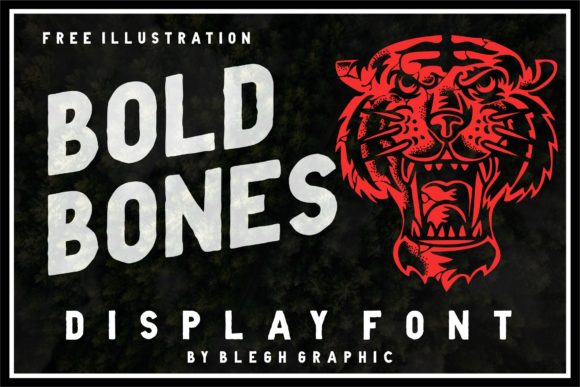
The Bold Statement: Unleashing the Power of Bold Bones Font
I’ll never forget the design project that led me to discover Bold Bones Font. I was working on a vintage-themed poster for a client’s antique shop, and I was struggling to find the perfect font to capture the essence of their brand. That’s when I stumbled upon Bold Bones, and it instantly became the perfect fit. In this article, I’ll share my experience with this amazing font, its features, and how to make the most of it in your designs.
- 💥 **Impactful and attention-grabbing**: Bold Bones is a bold, thick lettered, and vintage-looking display font that’s perfect for making a statement.
- ✅ **Highly versatile**: It can be used for a wide range of design projects, from posters and flyers to logos and branding.
- 🎨 **Endless possibilities**: With its unique character and style, Bold Bones can add a touch of personality to any design.
- ⚠️ **Limited use for body text**: Due to its bold and thick lettering, Bold Bones may not be the best choice for body text or long paragraphs.
- ⚠️ **May not be suitable for small sizes**: The font’s boldness may be overwhelming when used at small sizes.
The Story Behind Bold Bones
Bold Bones was designed by a talented type designer who’s passionate about creating unique and functional fonts. The font was inspired by vintage posters and signs from the early 20th century, with a focus on bold, thick lettering and classic typography. The designer aimed to create a font that’s both eye-catching and versatile, perfect for designers and crafters who want to add a touch of personality to their work.
Q: What is Bold Bones Font?
A: Bold Bones Font is a bold, thick lettered, and vintage-looking display font designed for making a statement.
Q: Is Bold Bones suitable for body text?
A: No, Bold Bones is not suitable for body text due to its bold and thick lettering. It’s best used for headlines, titles, and short paragraphs.